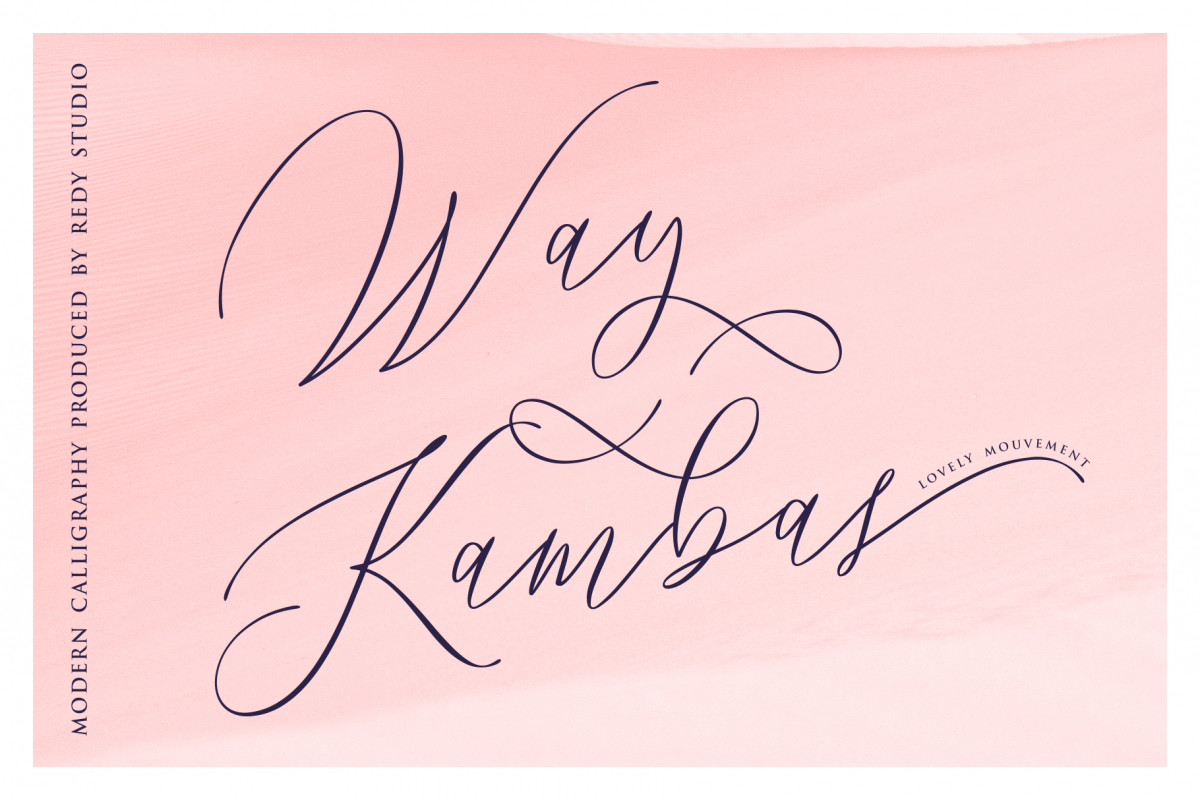
Way Kambas
Introducing Way Kambas is a modern calligraphy font with thin strokes and beautiful movements. Way Kambas provides beautiful letter essence for any design project including wedding invitation, card, Quote, etc and also comes with numbers, punctuation, alternates, ligatures and it also supports other languages :)